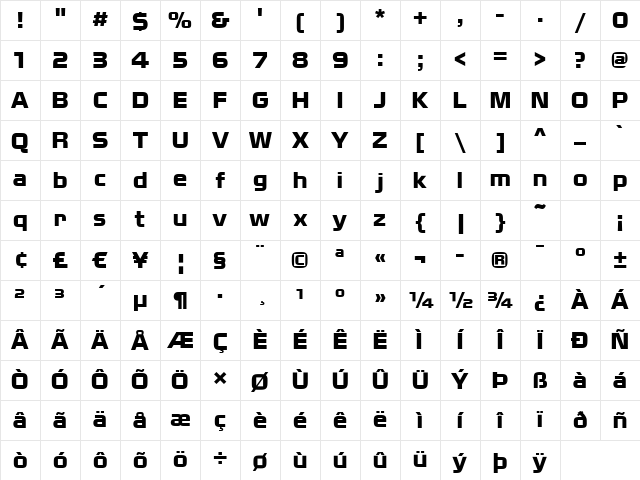
N-Car Regular Free Font
N-Car Regular
Design Context for N-Car
N-Car is a composed and adaptable typeface that performs quietly and consistently across a wide range of design contexts.